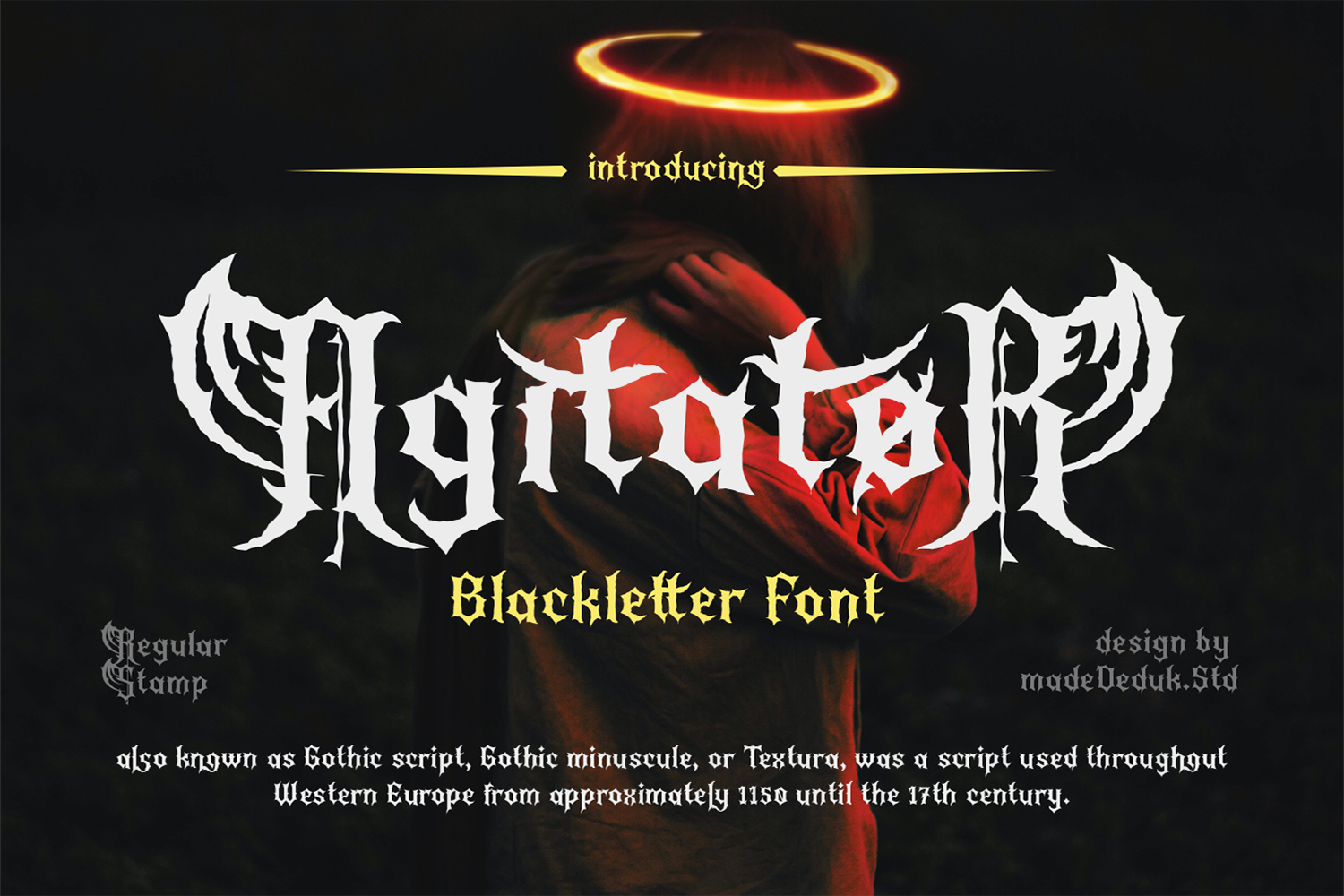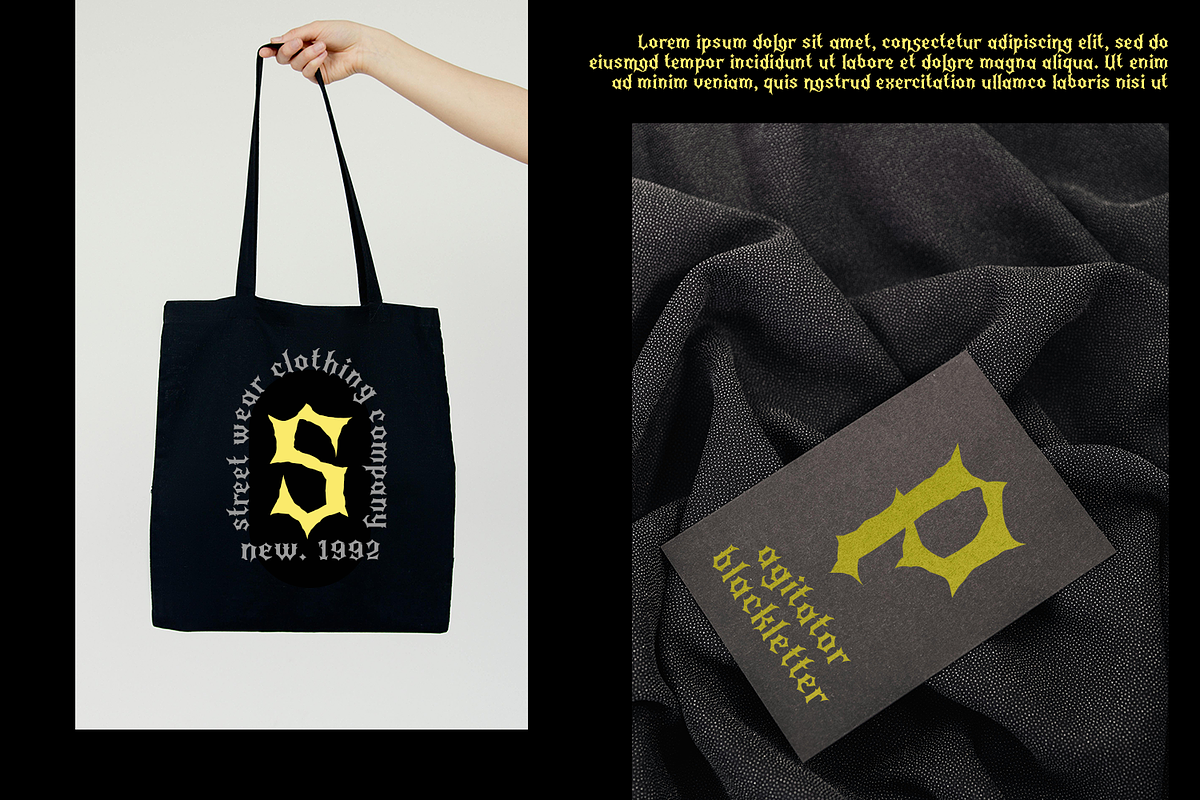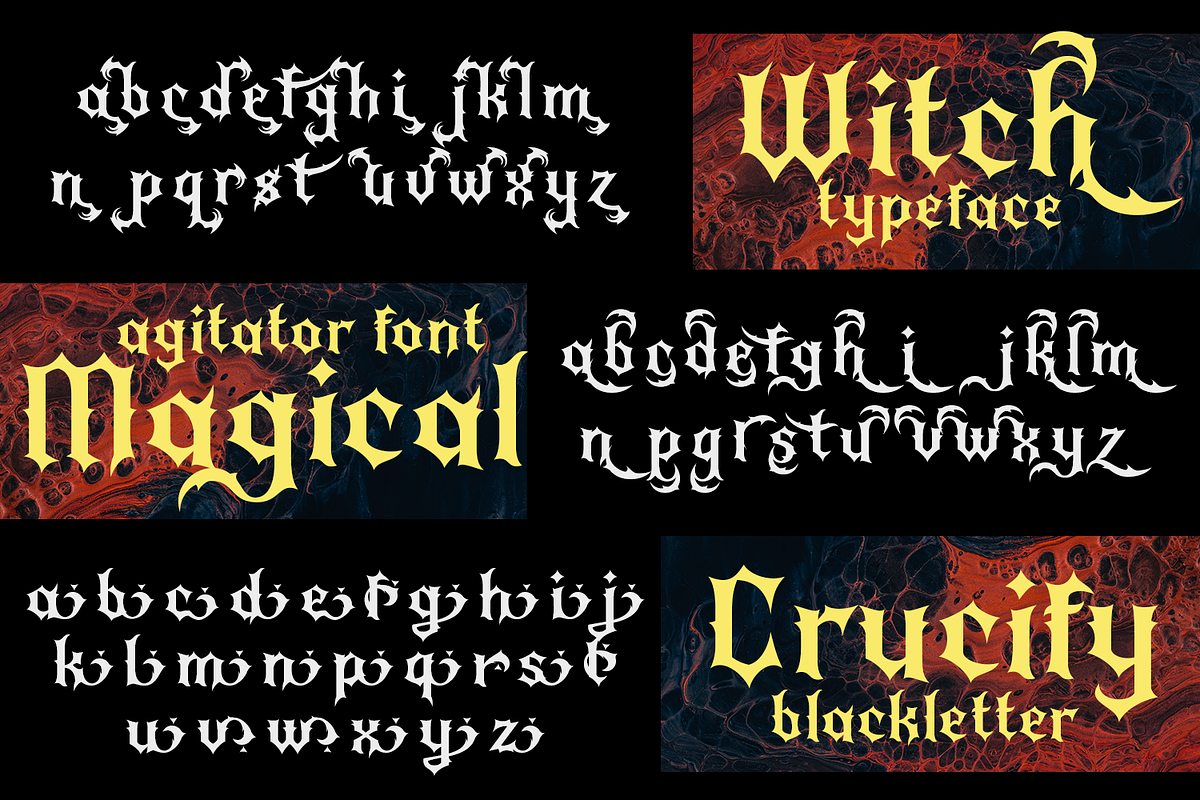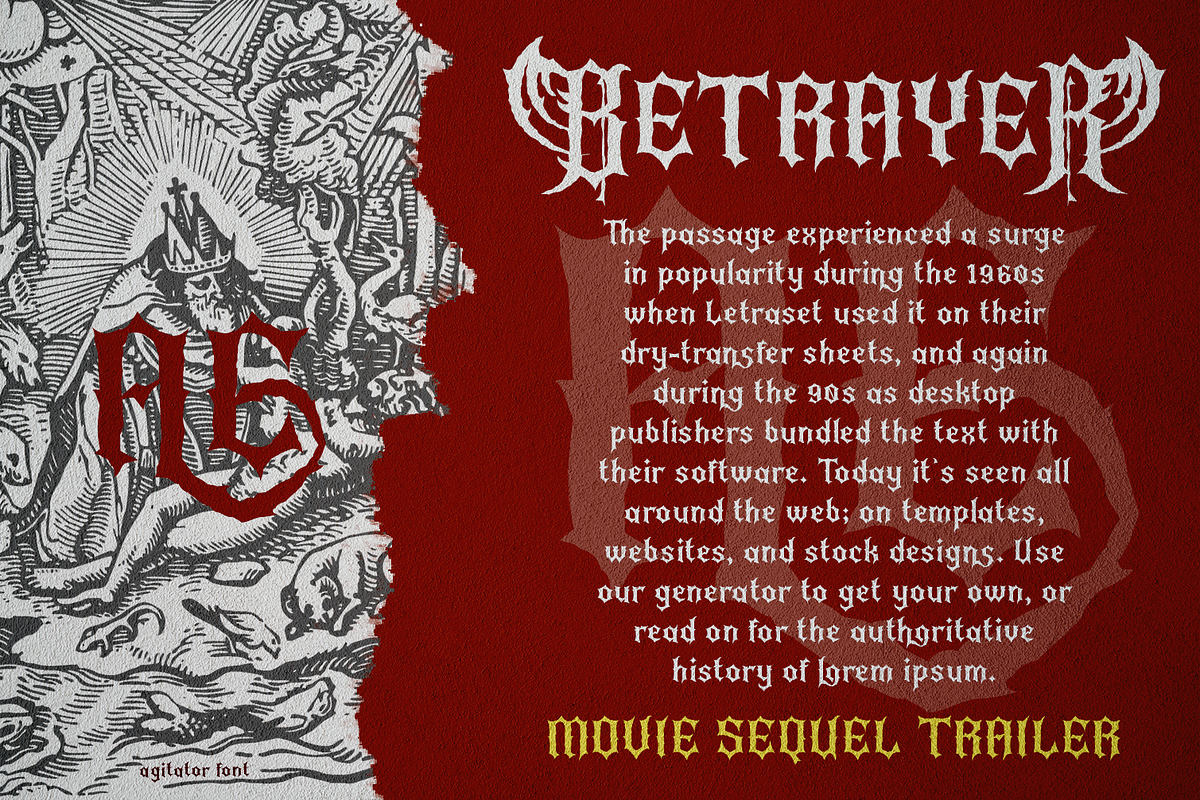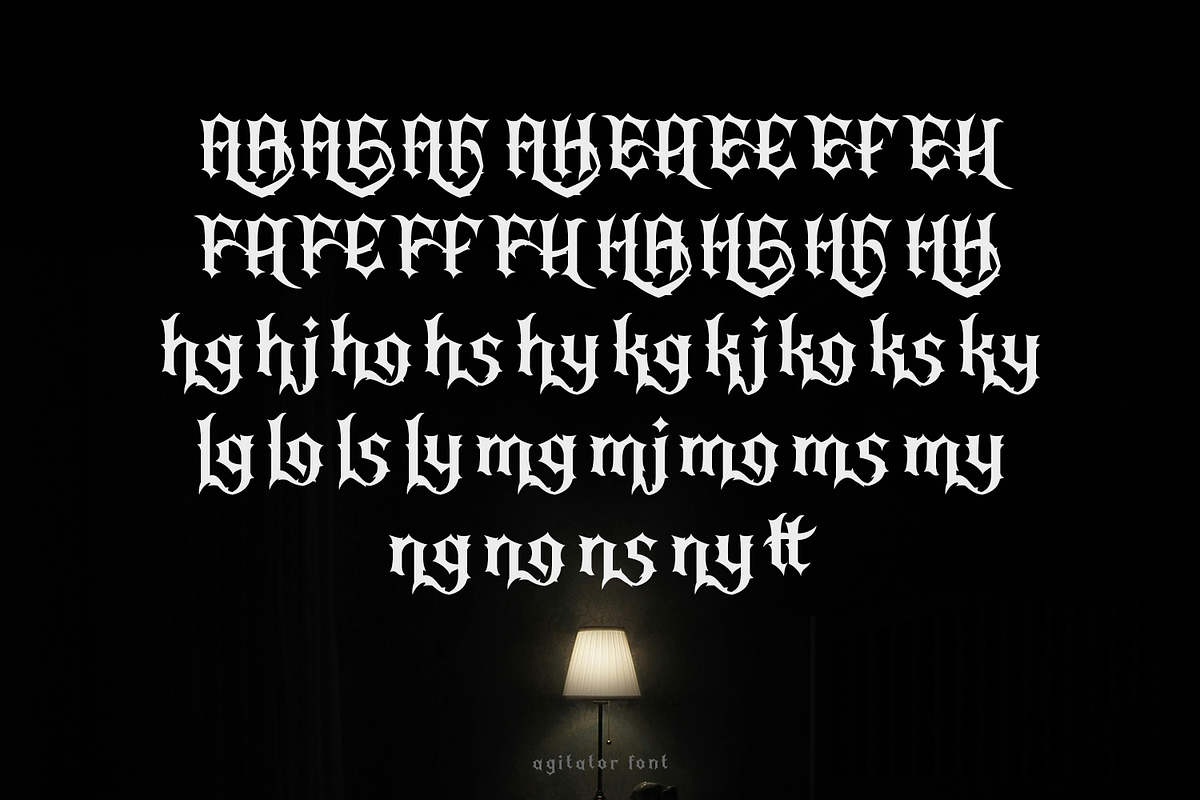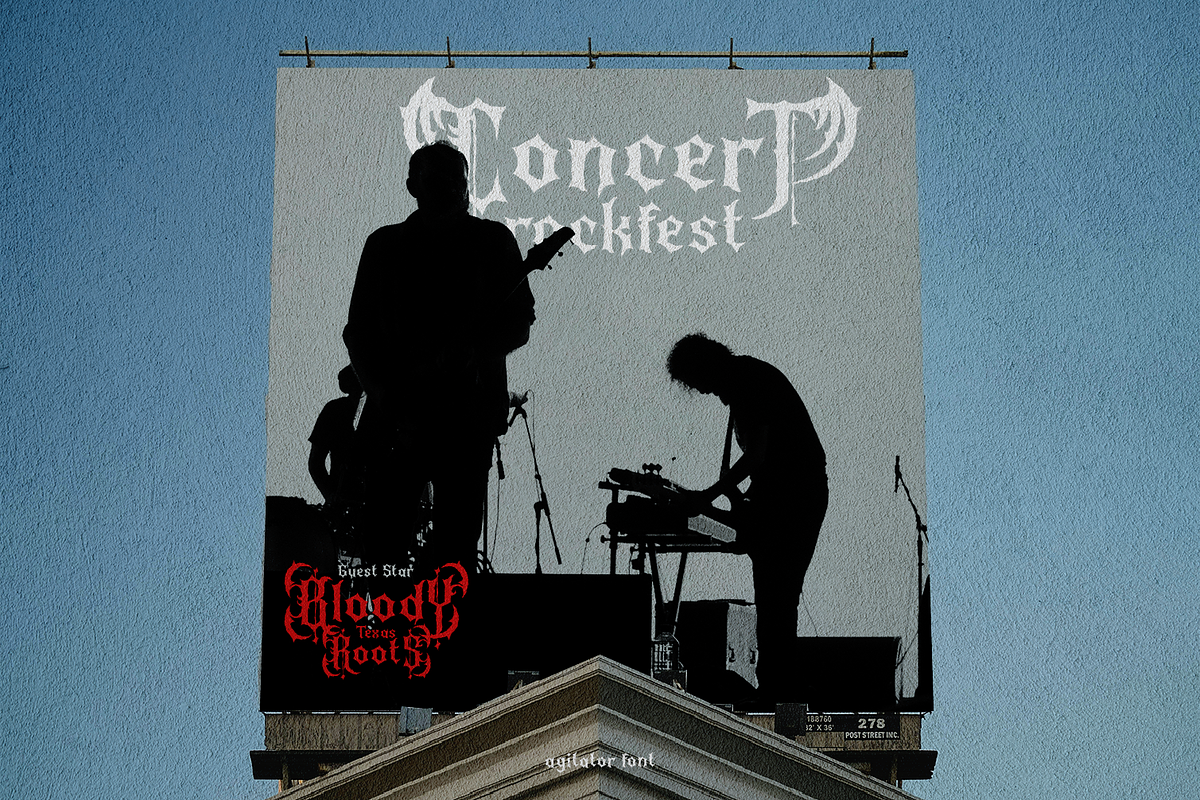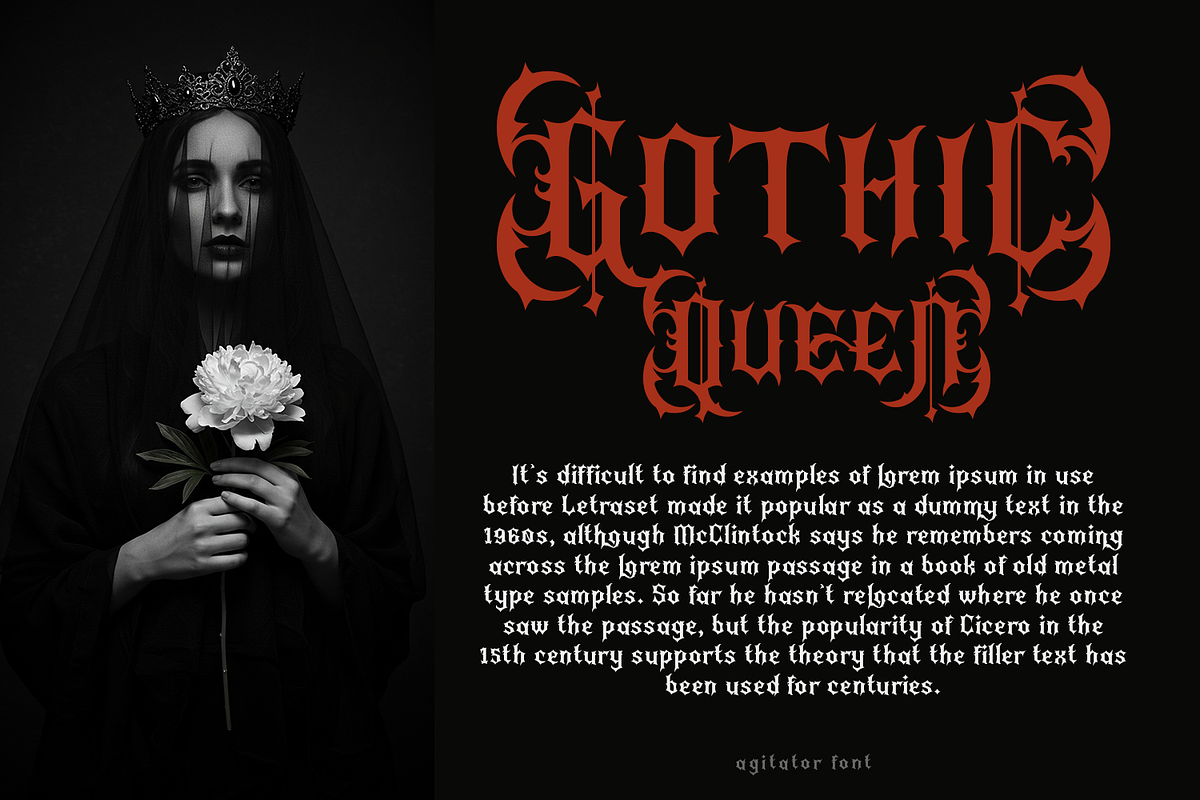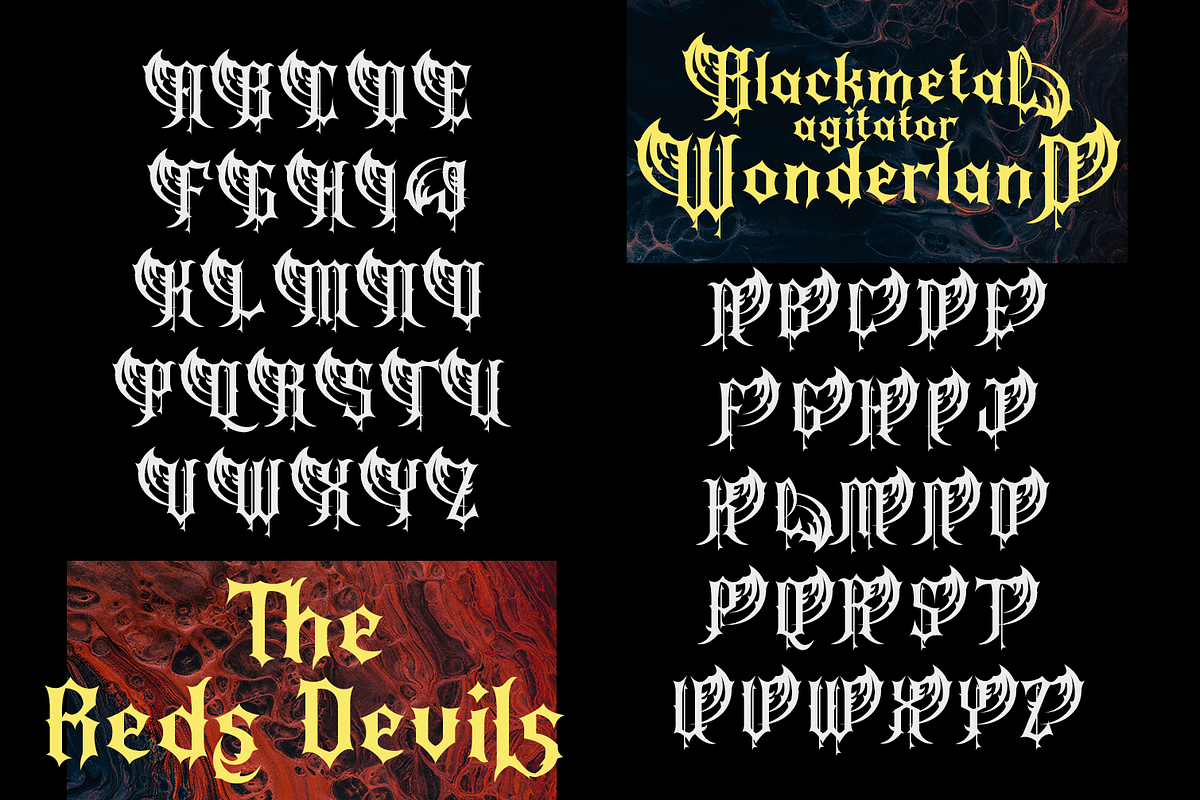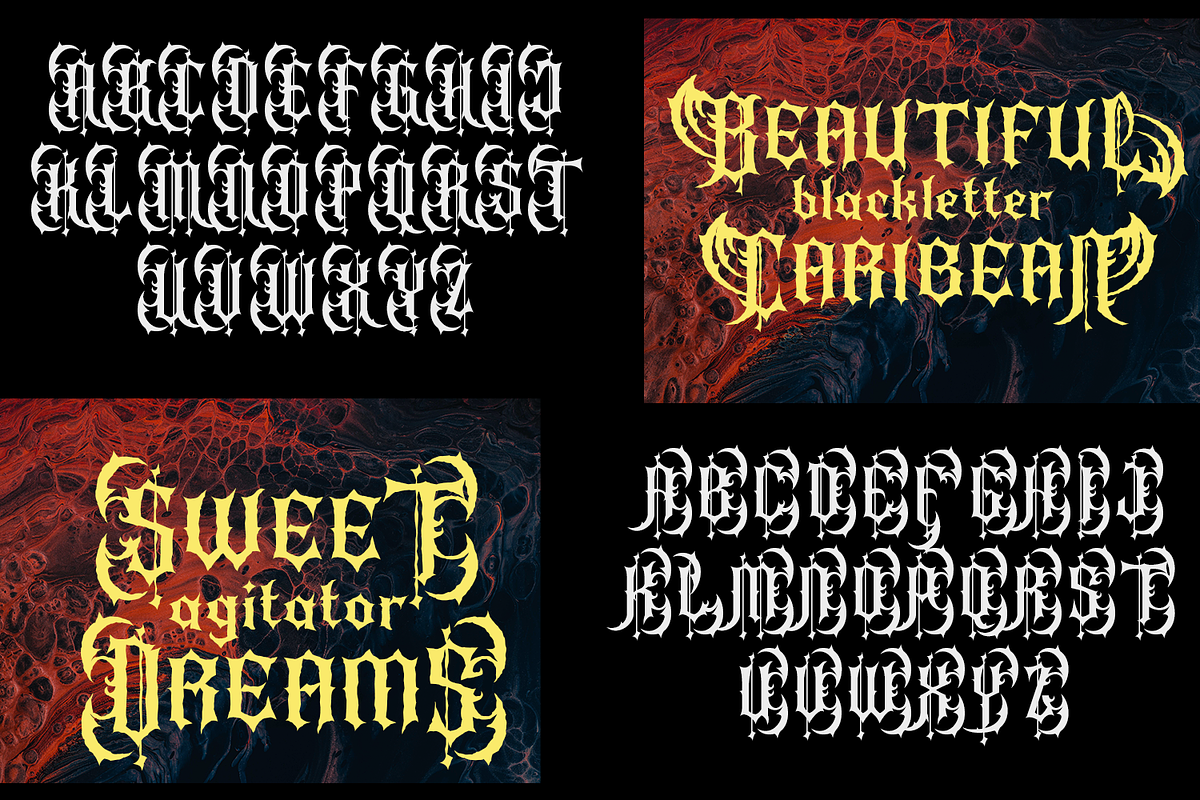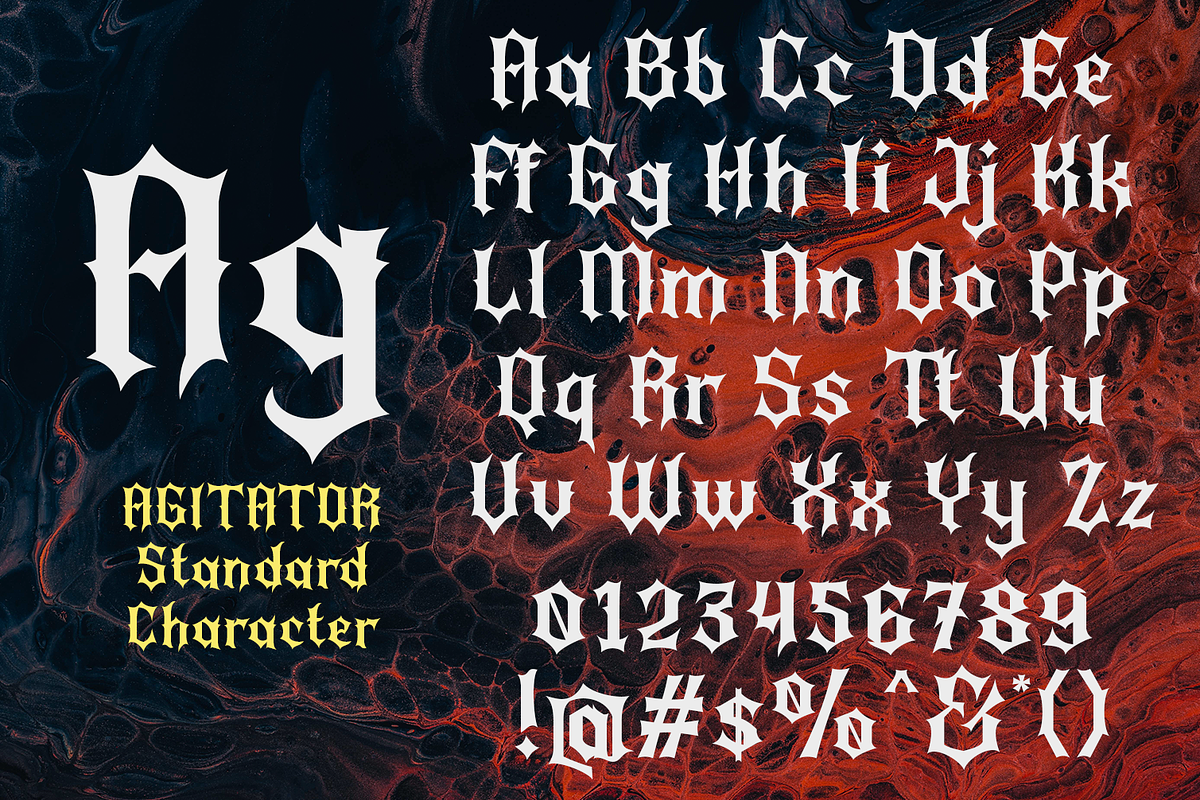
Agitator Blackletter Font
Introducing Agitator, a blackletter typeface that captivates with its bold, dramatic strokes and intricate detailing. Each character has been meticulously crafted to ensure your text stands out with a rugged, vintage charm. The font includes a rich set of ligatures and alternate characters, making it versatile for a range of applications such as branding, logo design, cover art, editorial layouts, and apparel graphics. Ideal for headlines and various design projects, Agitator adds a distinctive flair to any text, ensuring it commands attention and resonates with its audience.